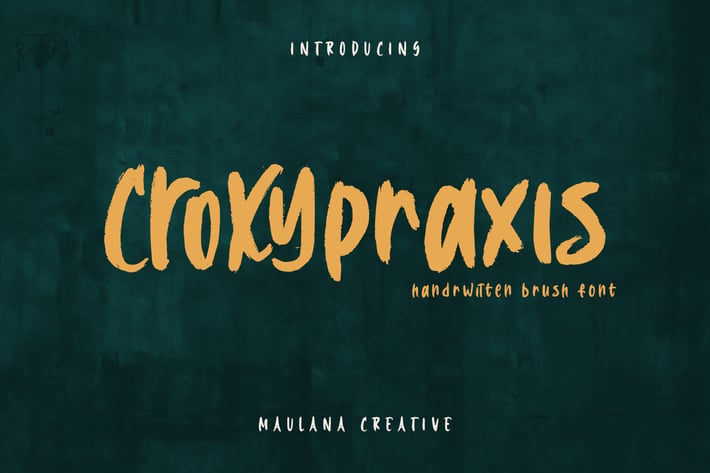
Croxypraxis Handwritten Brush Font
Croxypraxis is a fancy handwritten brush font. With bold rough brush stroke, fun character with a bit of ligatures and alternates. To give you an extra creative work. Croxypraxis font support multilingual more than 100+ language. This font is good for logo design, Social media, Movie Titles, Books Titles, a short text even a long text letter and good for your secondary text font with sans or serif. Make a stunning work with Croxypraxis font.